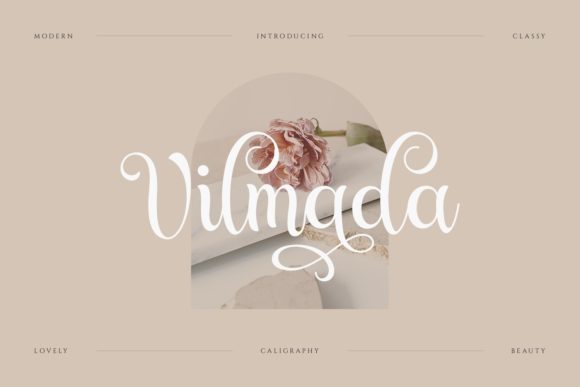
Behold Vilmada, the Script that's Got Your Name Written All Over It!
In the realm of written expression, where individuality dances upon the page, we present Vilmada - a script font that's no mere collection of letters, but a captivating dance of strokes, a symphony of curves that breathes life into your words.
With its elegant and unhurried demeanor, Vilmada invites you to immerse yourself in the art of handwritten beauty. Each character is a delicate brushstroke, a testament to the artistry and finesse that went into its creation. The result is a font that echoes the grace of penmanship, yet maintains a timeless, modern appeal.
Journey back to a time when letters were crafted with care, when every word held a whispered secret. Vilmada captures this essence, transforming your digital creations into tangible expressions of your thoughts and emotions. Whether you're a wordsmith spinning tales or a designer weaving visual wonders, Vilmada is your trusted companion, adding a touch of elegance and charm to every project.
Discover the Boundless Canvas of Vilmada:
With Vilmada at your fingertips, you unlock a world of creative possibilities, a universe of words adorned with grace. Let your imagination run wild as you explore its diverse applications:
1. Logos and Branding:
Forge a lasting impression with logos and branding that exude sophistication and timeless appeal. Vilmada's refined curves lend an air of professionalism to business identities, while its artistic flair adds a touch of personality that sets you apart from the crowd.
2. Wedding Invitations:
Announce your special day with wedding invitations that mirror the elegance of Vilmada. Let your vows dance across the page, entwined with the delicate strokes of this exquisite font, creating a keepsake that will be treasured for generations to come.
3. Social Media Graphics:
Capture the attention of your social media audience with captivating graphics that showcase Vilmada's allure. Craft posts, stories, and ads that radiate artistry and leave a lasting impact on your followers.
4. Book Covers:
Adorn your book covers with Vilmada's graceful presence. Whether it's a work of fiction or non-fiction, this font will draw readers in, promising an immersive journey through the written word.
5. Poetry and Calligraphy:
Unlock the beauty of poetry and calligraphy with Vilmada as your trusted companion. Transform words into art, allowing their essence to flow freely through the exquisite lines of this remarkable font.
6. Personal Branding:
Craft a personal brand that reflects your unique style and personality. Use Vilmada to design personalized stationery, business cards, and social media profiles that showcase your creative flair.
7. Website Design:
Bring your website to life with the elegance of Vilmada. Create headers, titles, and body text that captivate visitors, guiding them through your digital haven with grace and sophistication.